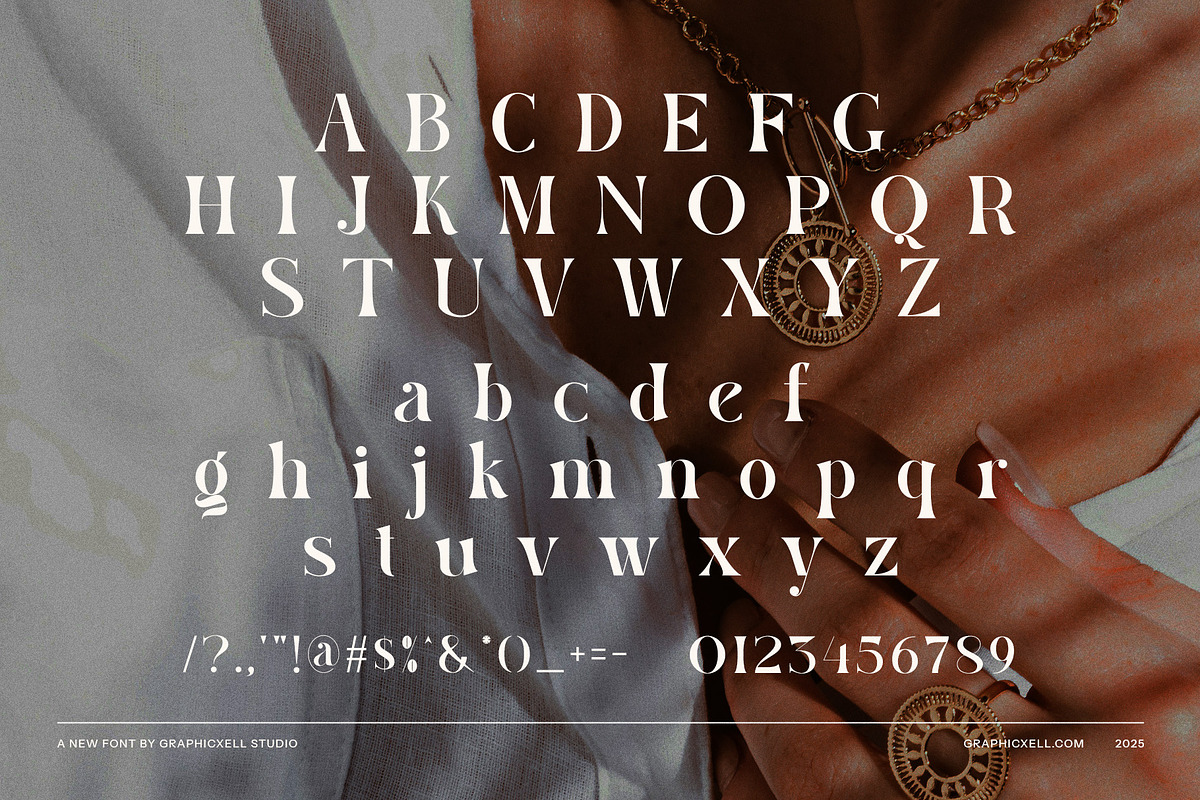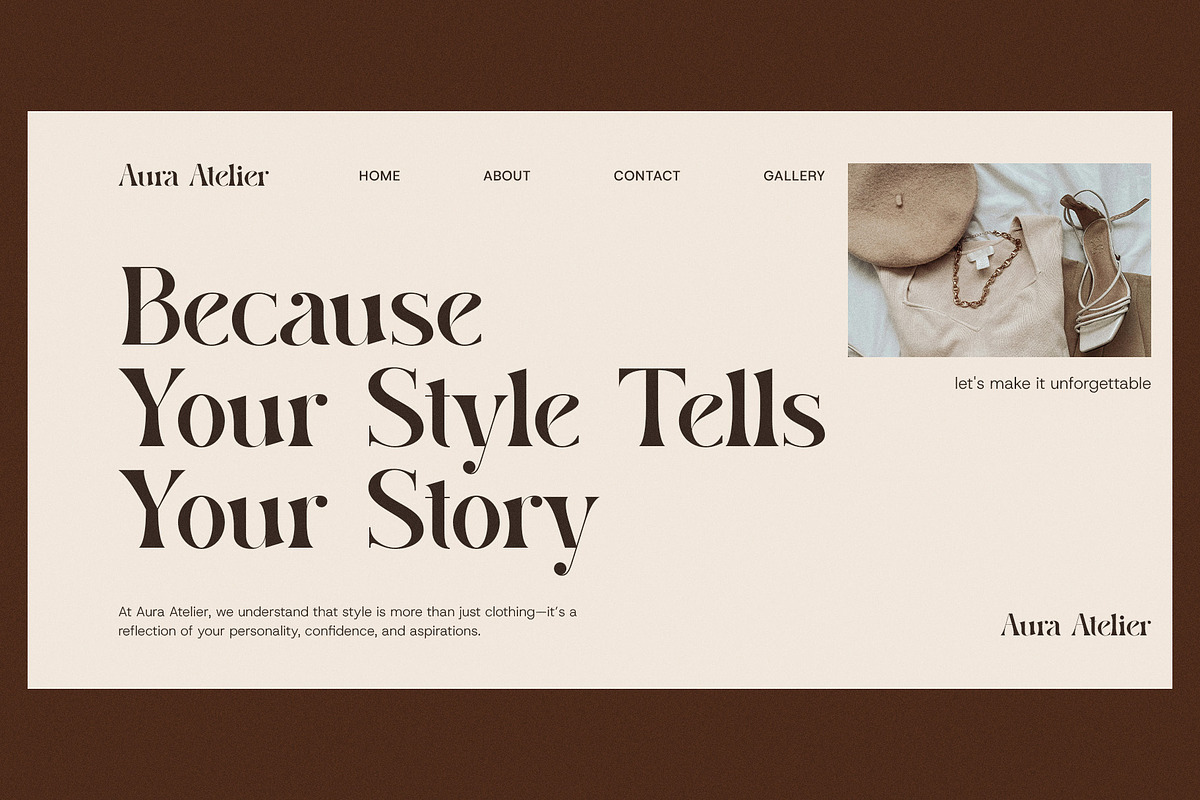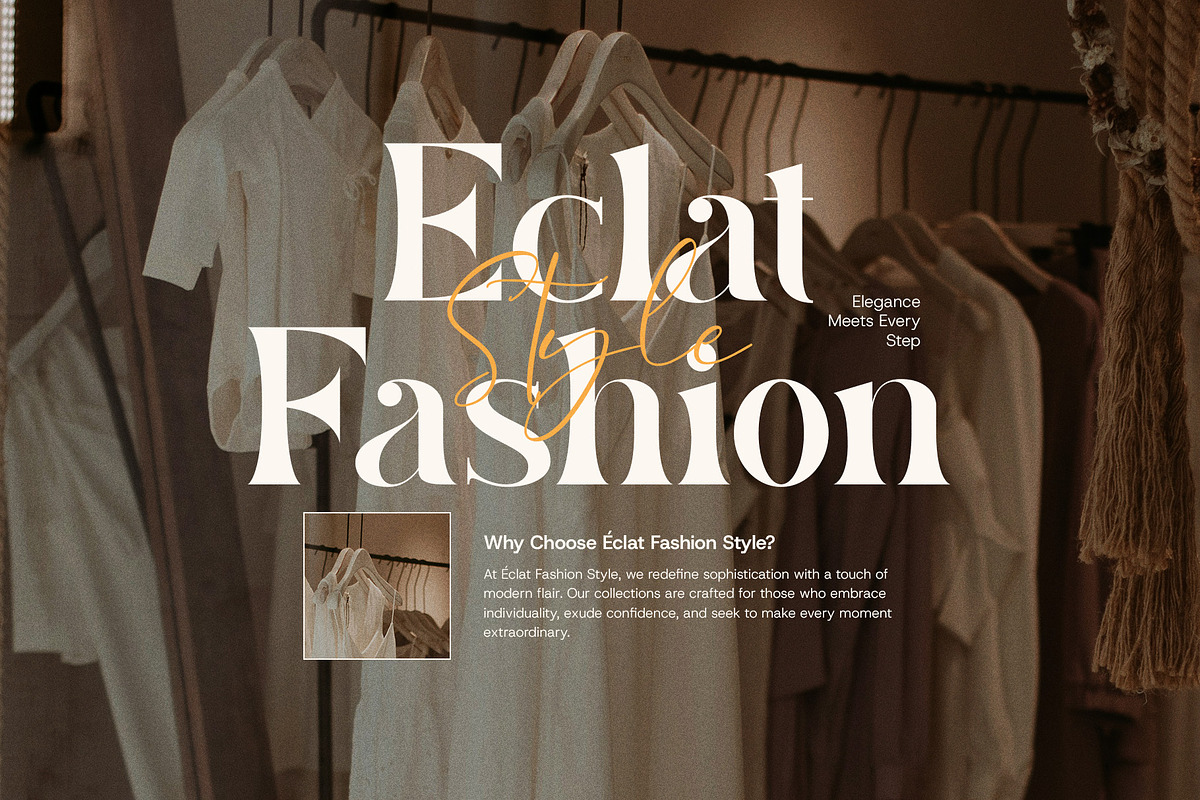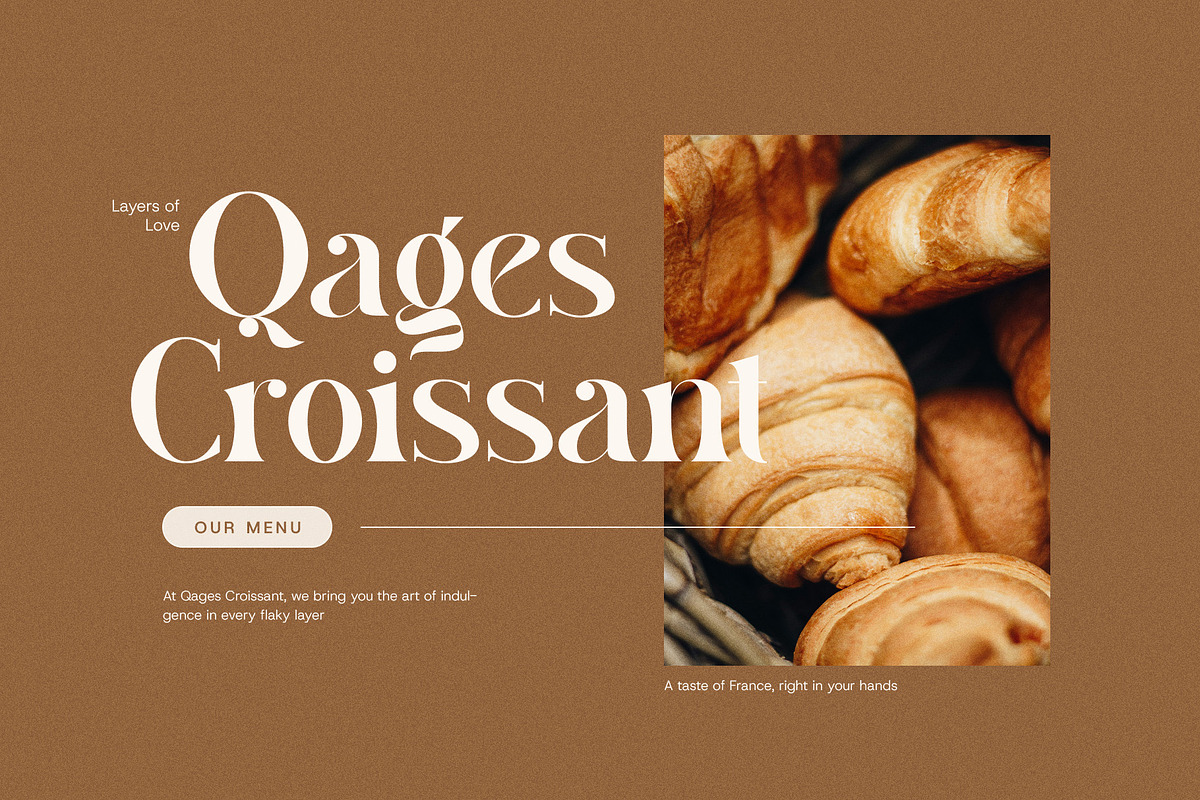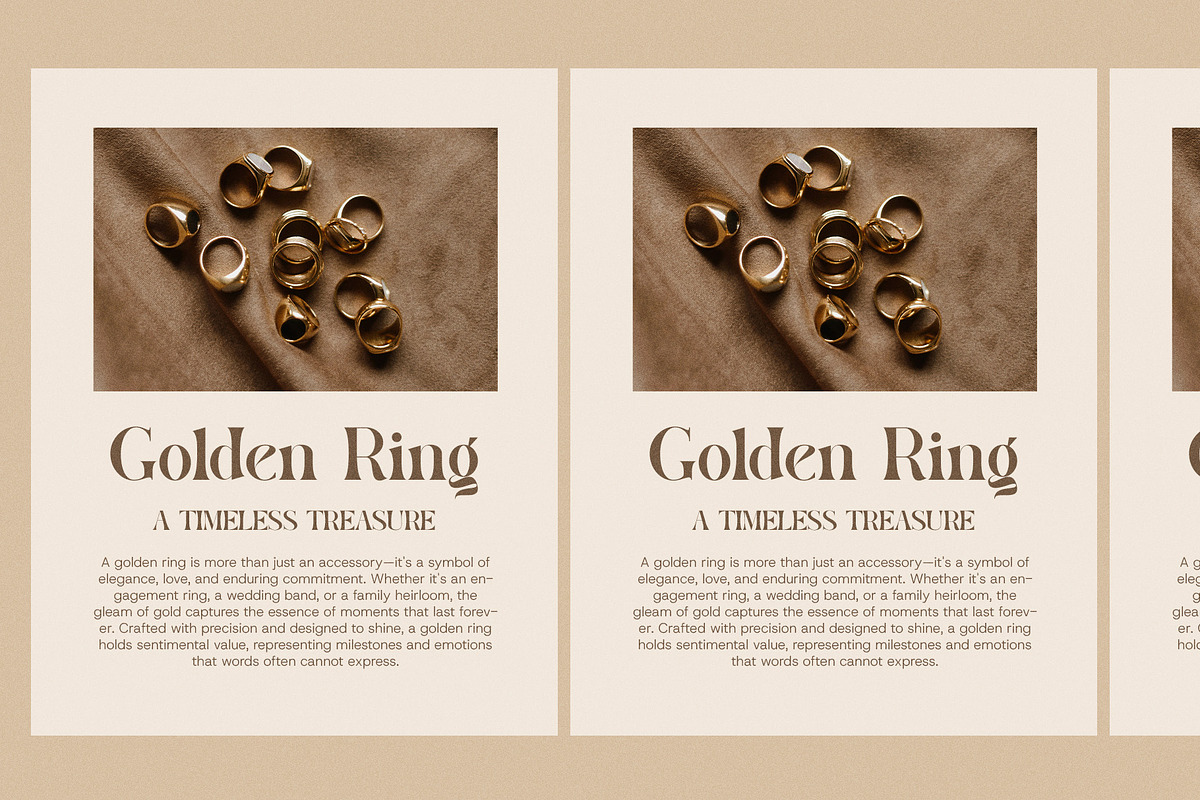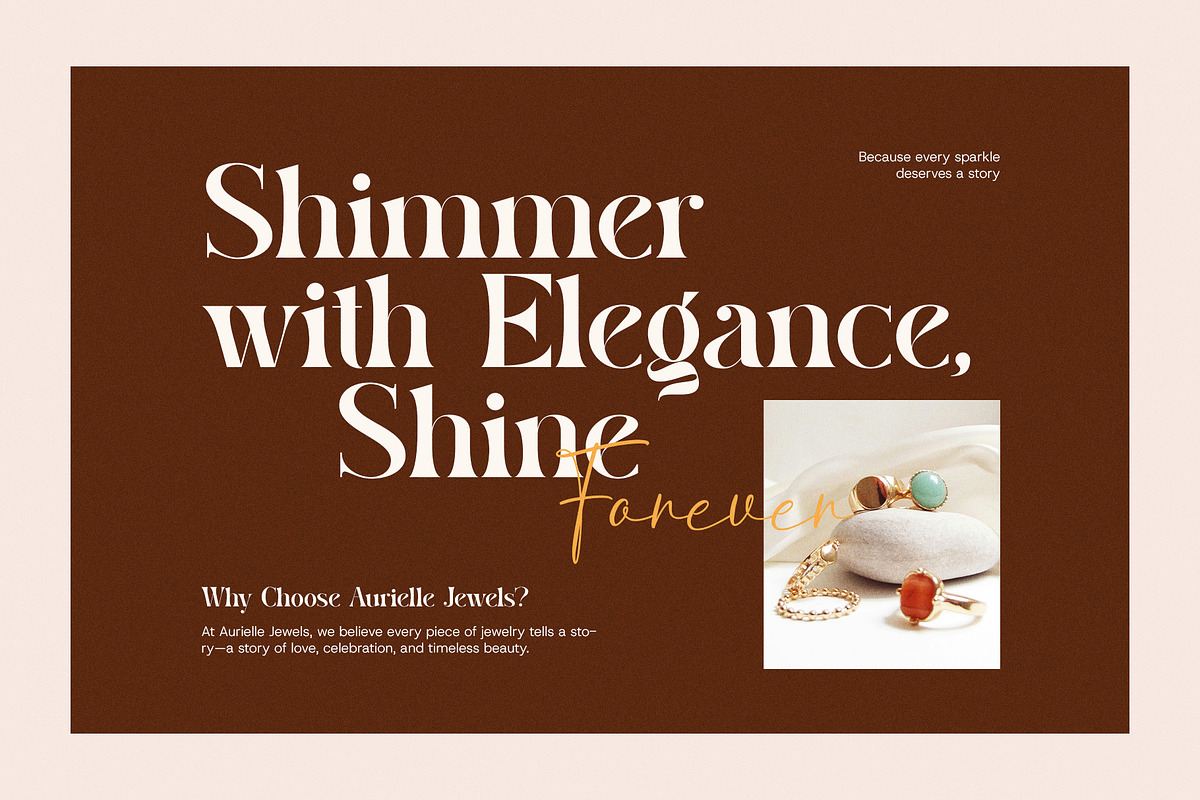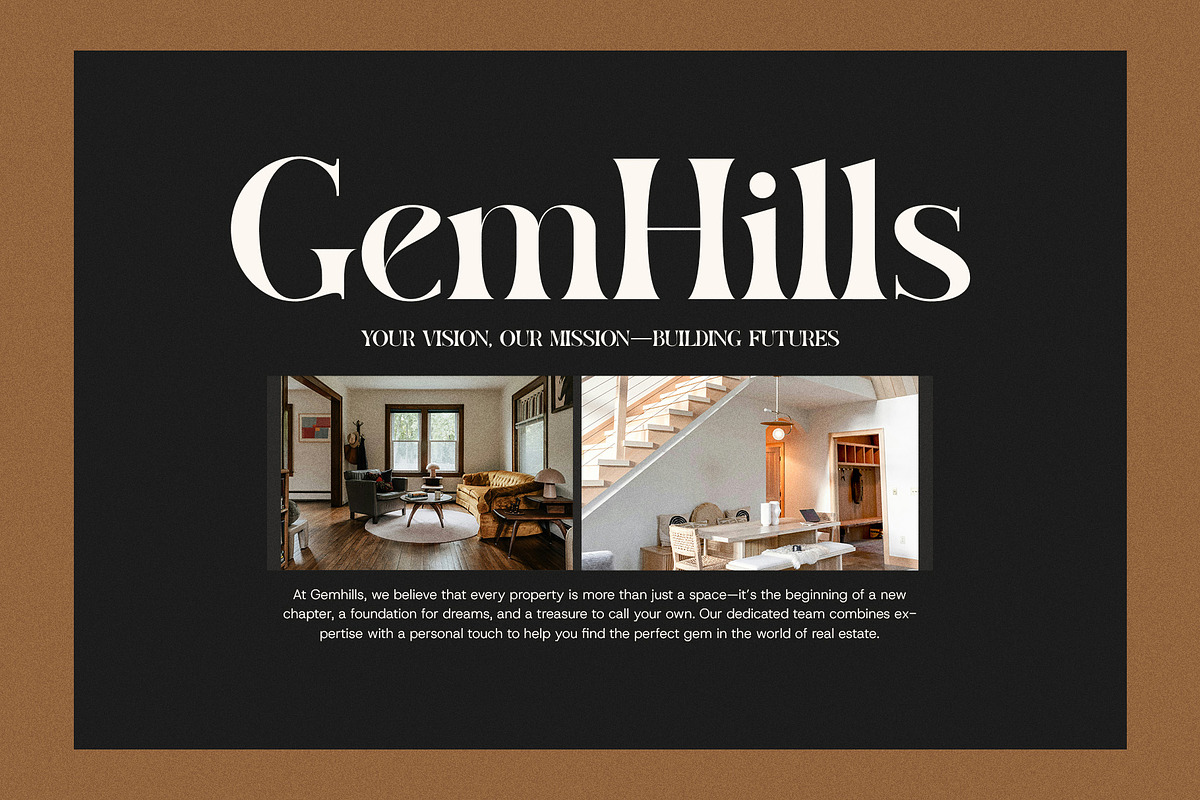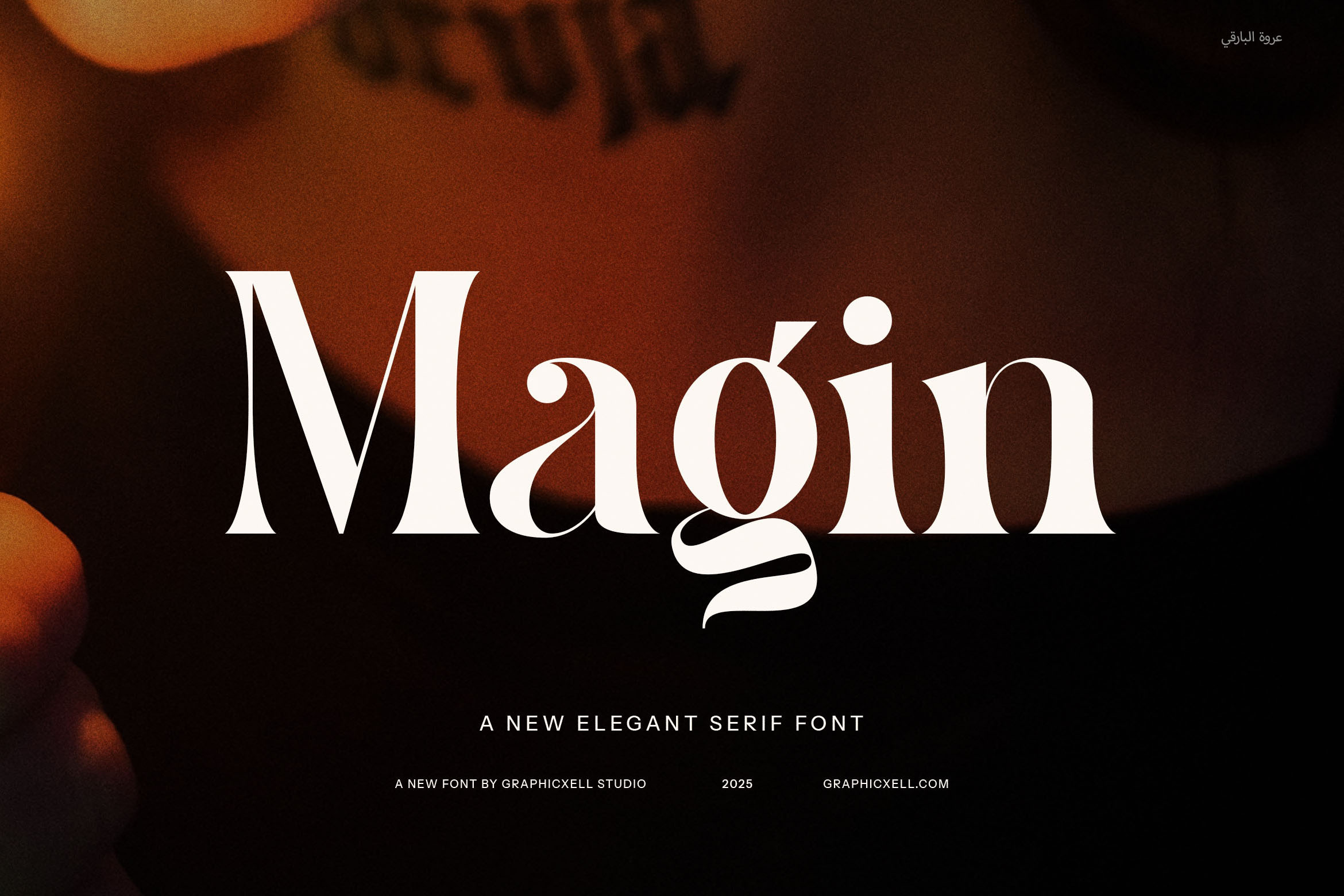
Magin Elegant Serif Font
Magin Elegant Serif is a sophisticated and modern typeface designed to elevate your creative projects with a touch of refinement. Its graceful letterforms, adorned with stylish ligatures and distinctive alternates, create a seamless blend of contemporary aesthetics and timeless elegance. Whether you're crafting a luxury brand, designing an upscale magazine layout, or developing a high-end website, Magin adds an air of exclusivity and class to your typography.
This versatile serif font is ideal for branding, logos, product packaging, and editorial design, offering a harmonious balance between readability and artistic expression. The carefully crafted curves and refined details make every letter feel effortlessly chic, enhancing everything from boutique fashion labels to gourmet food packaging.
With its sleek lines and well-defined serifs, Magin Elegant Serif embodies sophistication while maintaining a modern edge. The unique ligatures bring a creative flourish to headlines, while the alternates allow for customized typography that stands out in any composition.
Perfect for luxury branding, wedding invitations, premium advertisements, and high-fashion publications, Magin is designed to leave a lasting impression. Whether paired with minimalist designs or used as the focal point of a composition, this font commands attention with its poised and polished aesthetic.
Elevate your design projects with Magin Elegant Serif—where timeless sophistication meets modern versatility.